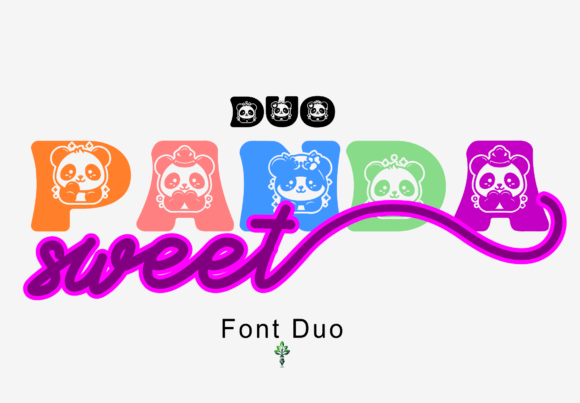
Sweet Panda Duo Font: Elevate Your Designs with a Typographic Tandem
In the realm of typography, few fonts manage to capture the essence of creativity and warmth as effectively as Sweet Panda Duo. This remarkable font, designed as a two-part typographic tandem, is poised to revolutionize the way you approach design. With its organic, spontaneous rhythm of hand-scripting, Sweet Panda Duo breathes life into textual elements, imbuing them with a friendly, warm appeal that’s hard to resist.
The Charm of Hand-Scripting
Sweet Panda Duo’s design is deeply rooted in the art of hand-scripting. The font’s unique character is skillfully patterned after the natural flow and imperfections of handwritten text. This approach lends a distinctly human touch to your designs, making them more relatable and engaging. The hand-scripting inspiration also gives Sweet Panda Duo a lively, energetic feel that’s perfect for a wide range of creative projects.
A Typographic Tandem Like No Other
Sweet Panda Duo is more than just a font – it’s a typographic tandem that offers unparalleled versatility. The duo consists of a lively display script and a complementary font that work in harmony to elevate your designs. The display script is peppered with undeniably captivating charm, making it perfect for headlines, titles, and other attention-grabbing elements. Meanwhile, the secondary font provides a subtle yet effective complement that enhances the overall visual appeal of your design.
Enchanting Typography for Every Creative Scenario
Whether you’re working on a professional project or a personal endeavor, Sweet Panda Duo is the perfect typographic companion. The font’s enchanting character and invigorating individuality make it an excellent choice for a wide range of creative scenarios. From branding and advertising to packaging and digital media, Sweet Panda Duo has a knack for multiplying the visual appeal of your design canvas.
Key Features of Sweet Panda Duo
- Hand-scripted design: Sweet Panda Duo’s unique character is inspired by the natural flow and imperfections of handwritten text.
- Typographic tandem: The font consists of a lively display script and a complementary font that work in harmony to elevate your designs.
- Captivating charm: The display script is peppered with undeniably captivating charm, making it perfect for headlines, titles, and other attention-grabbing elements.
- Versatile: Sweet Panda Duo is suitable for a wide range of creative projects, from professional to personal.
How Sweet Panda Duo Can Elevate Your Designs
Sweet Panda Duo has the power to transform your designs in many ways. Here are just a few examples:
- Add a touch of warmth: Sweet Panda Duo’s hand-scripted design and friendly appeal make it an excellent choice for adding a touch of warmth to your designs.
- Increase visual appeal: The font’s captivating charm and lively character make it perfect for attention-grabbing elements, such as headlines and titles.
- Enhance creativity: Sweet Panda Duo’s unique character and versatility make it an excellent choice for creative projects that require a dash of imagination.
Tips for Using Sweet Panda Duo Effectively
To get the most out of Sweet Panda Duo, here are a few tips to keep in mind:
- Use it sparingly: Sweet Panda Duo’s bold character makes it perfect for attention-grabbing elements, but use it sparingly to avoid overwhelming your design.
- Experiment with pairings: Try pairing Sweet Panda Duo with other fonts to create a unique and visually appealing combination.
- Play with sizes: Experiment with different font sizes to create visual hierarchy and add depth to your design.
Sweet Panda Duo is a game-changing typographic tandem that’s poised to revolutionize the way you approach design. With its organic, spontaneous rhythm of hand-scripting, captivating charm, and versatile character, this font is perfect for a wide range of creative projects. Whether you’re a professional designer or a DIY enthusiast, Sweet Panda Duo has the power to elevate your designs and bring your creative vision to life.
FAQs About Sweet Panda Duo
- What is Sweet Panda Duo?: Sweet Panda Duo is a typographic tandem font that consists of a lively display script and a complementary font.
- What inspired the design of Sweet Panda Duo?: The font’s design is inspired by the natural flow and imperfections of handwritten text.
- What types of projects is Sweet Panda Duo suitable for?: Sweet Panda Duo is suitable for a wide range of creative projects, from professional to personal, including branding, advertising, packaging, and digital media.